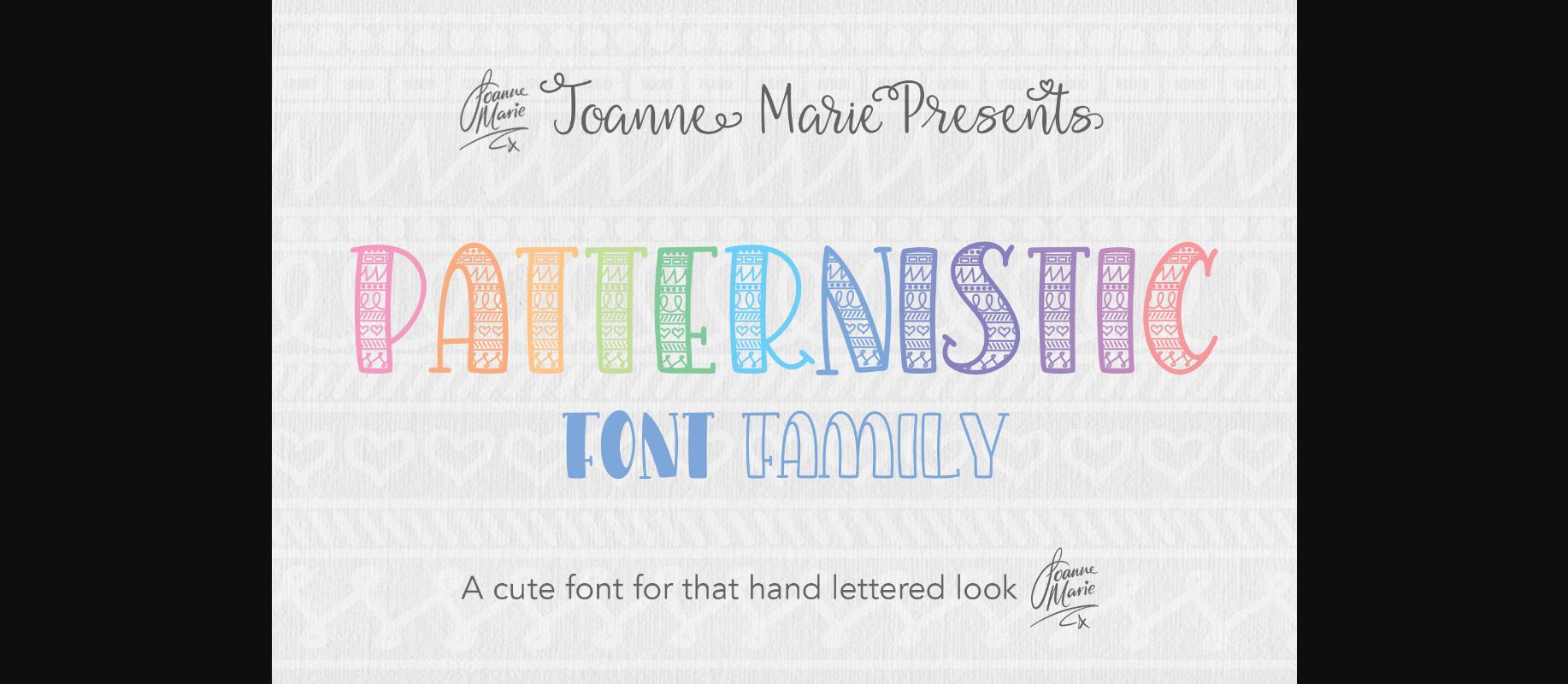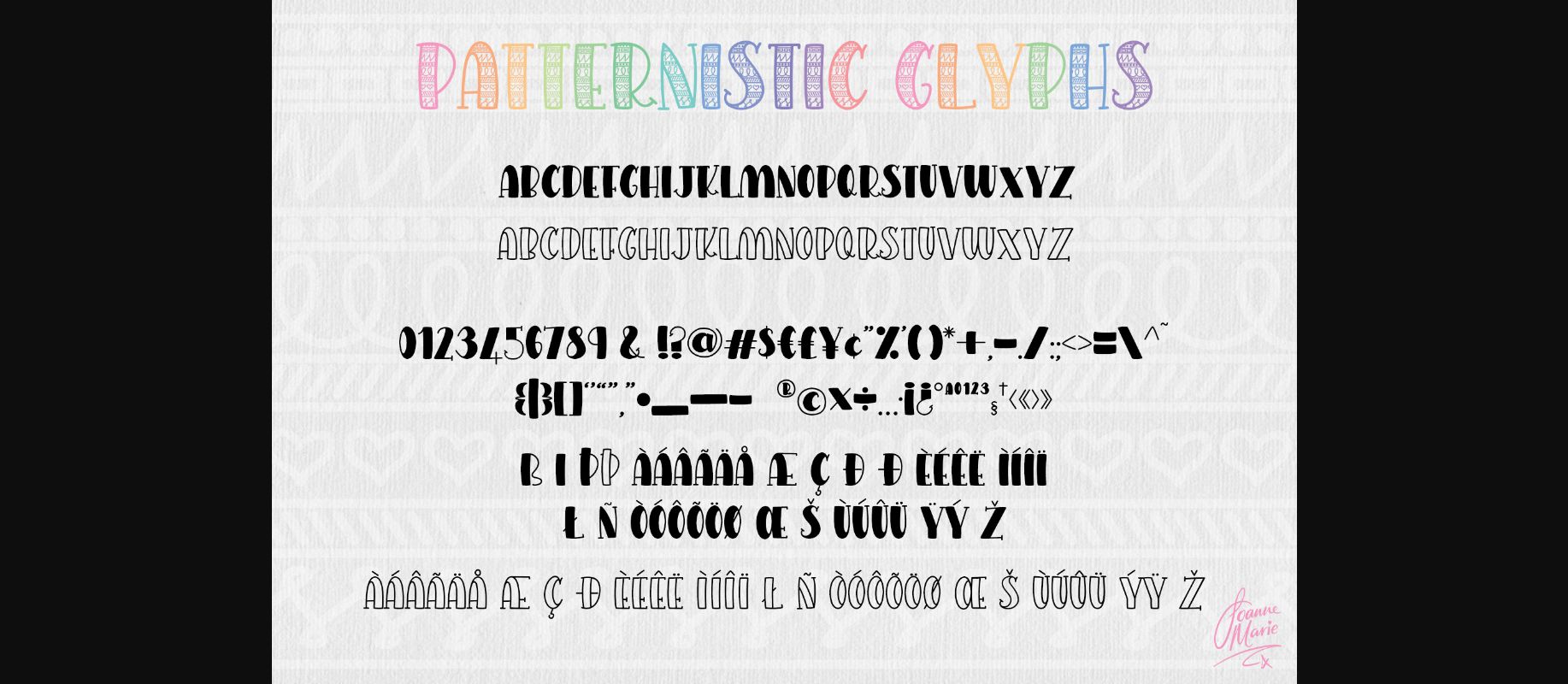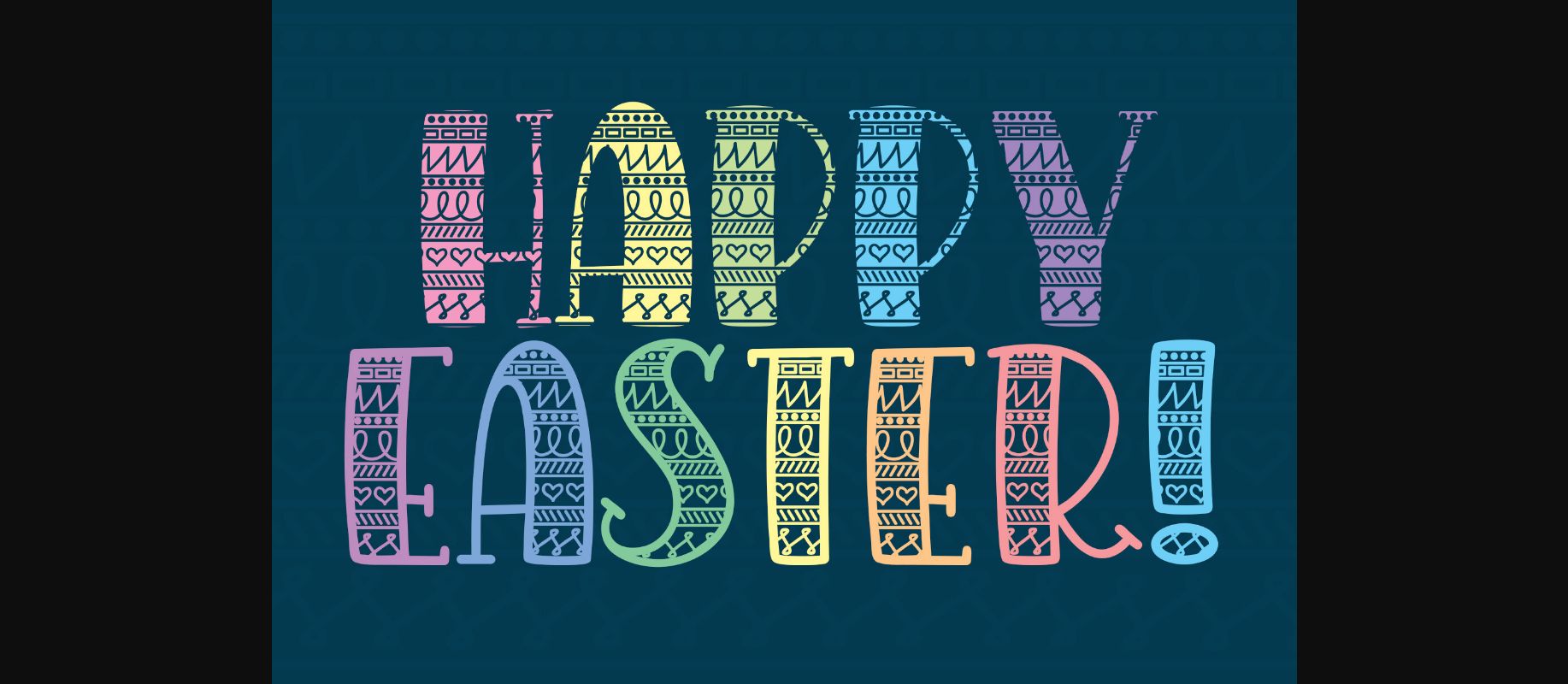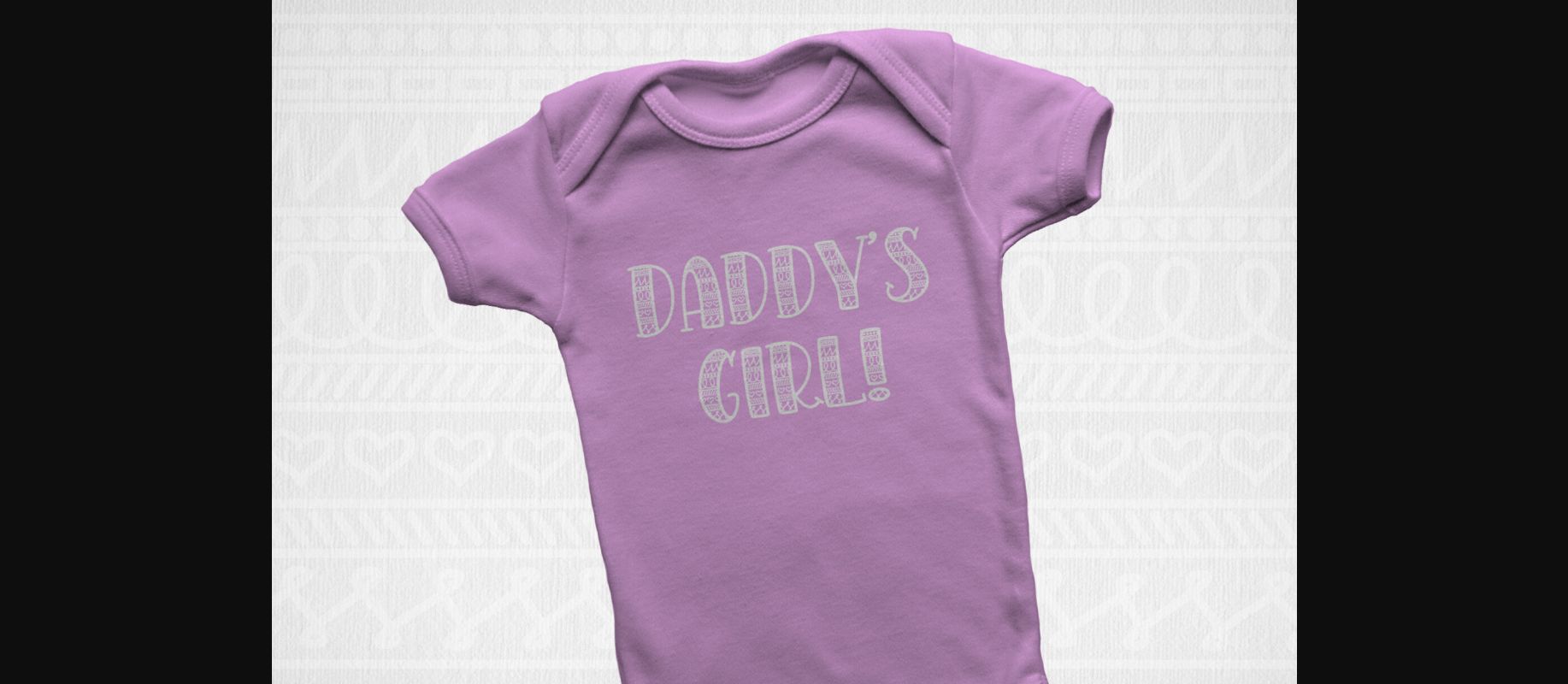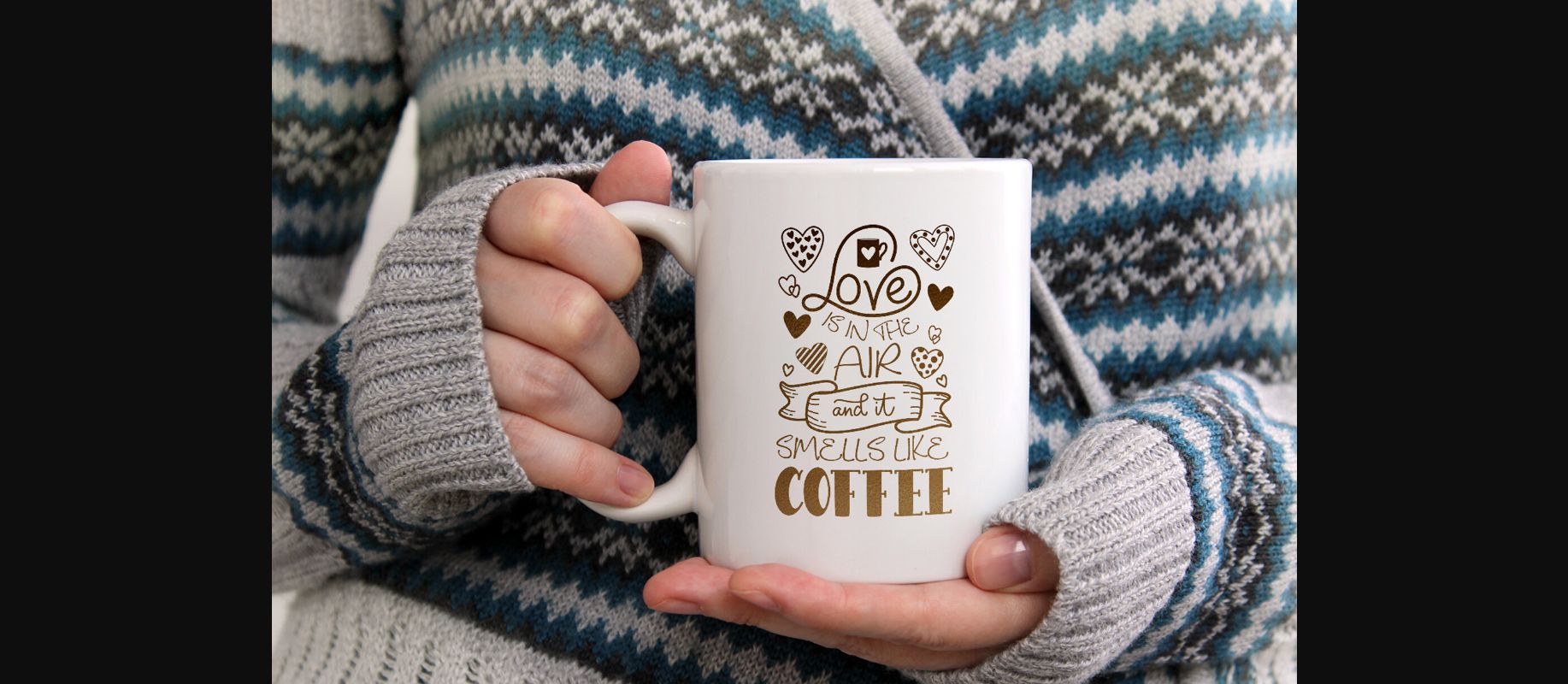
About Patternistic Font
PATTERNISTIC is a cute and fun, all-caps font for any hand lettering style project. There are 2 fonts included in this family and the uppercase is different from the lowercase (one is solid and one is outline).
It contains 2 fonts:
Patternistic – this has solid numbers and punctuation, international glyphs, etc.
Patternistic Doodle – this has outlined patterned numbers and punctuation, international glyphs, etc.